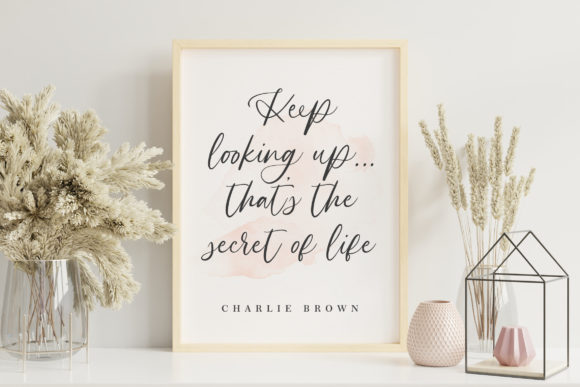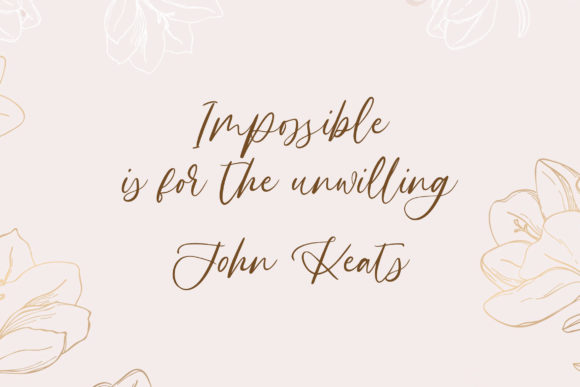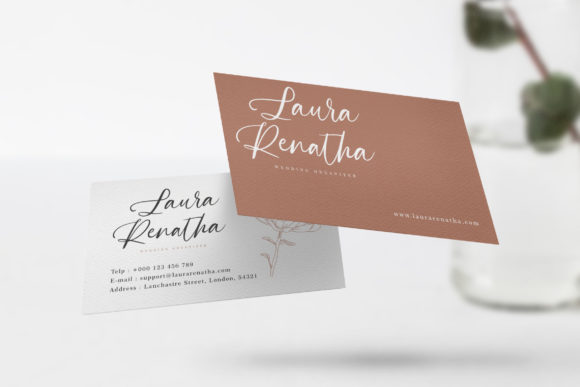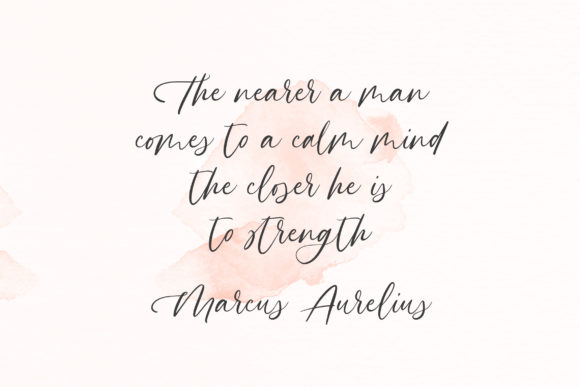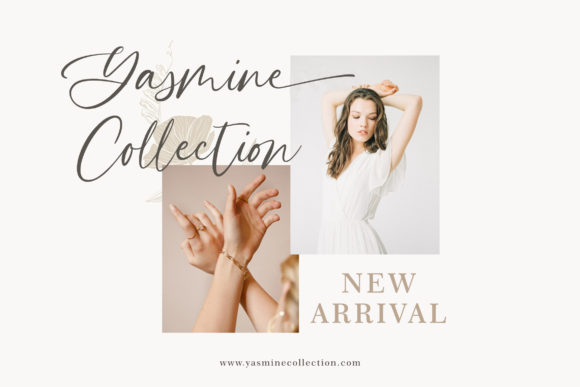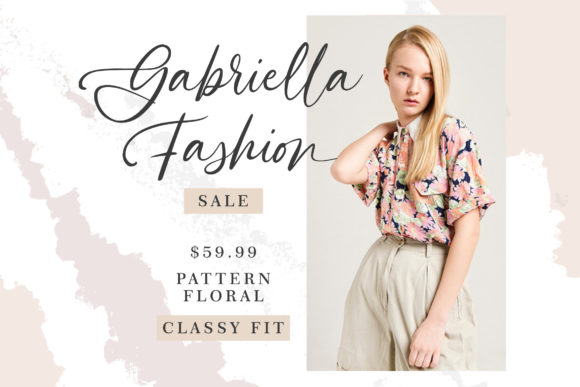
Introducing Golden Bloom Font: Elevate Your Designs with Elegance and Sophistication
In the world of typography, a font can make or break the aesthetic of a design project. For those seeking a touch of luxury and refinement, the Golden Bloom Font is an exceptional choice. This chic, refined script font is designed to emanate sophistication and elegance, making it the perfect match for any project that demands high-end style.
What is Golden Bloom Font?
Golden Bloom is a beautifully crafted script font that exudes classic charm with a modern twist. Its flowing lines and delicate curves are meticulously designed to bring a sense of luxury and refinement to any design. Whether you’re working on a branding project, wedding invitations, or packaging, Golden Bloom Font is sure to make a lasting impression.
Key Features of Golden Bloom Font
- Stylish Alternates and Ligatures: One of the standout features of Golden Bloom Font is its comprehensive set of stylish alternates and ligatures. These features allow designers to add a unique touch to their work, making each project truly one-of-a-kind.
- Elegant and Sophisticated: The font’s elegant and sophisticated design makes it ideal for projects that require a high level of refinement. From luxury brands to high-end events, Golden Bloom Font is the perfect choice.
- Versatile: Golden Bloom Font is incredibly versatile, making it suitable for a wide range of design projects. Whether you’re creating a logo, packaging, or marketing materials, this font is sure to impress.
- Easy to Read: Despite its elegant and refined design, Golden Bloom Font remains easy to read, making it perfect for body text as well as headlines.
Who Can Benefit from Golden Bloom Font?
Golden Bloom Font is an excellent choice for a variety of designers and crafters, including:
- Graphic Designers: If you’re a graphic designer looking for a font that can elevate your branding and marketing projects, Golden Bloom Font is an excellent choice.
- Wedding Planners and Stylists: For those in the wedding industry, Golden Bloom Font is perfect for creating beautiful wedding invitations, programs, and other stationery.
- Packaging Designers: If you’re involved in packaging design, Golden Bloom Font can add a touch of luxury to your designs, making products stand out on store shelves.
- Crafters and DIY Enthusiasts: For crafters and DIY enthusiasts, Golden Bloom Font can be used to add a personal touch to handmade cards, invitations, and other craft projects.
Tips for Using Golden Bloom Font
To get the most out of Golden Bloom Font, consider the following tips:
- Pair with Simple Fonts: For maximum impact, pair Golden Bloom Font with simpler fonts to create a striking contrast.
- Experiment with Alternates and Ligatures: Take advantage of the font’s stylish alternates and ligatures to add a unique touch to your designs.
- Use for Headlines and Titles: Golden Bloom Font is perfect for headlines and titles, but don’t be afraid to use it for body text as well.
In conclusion, Golden Bloom Font is a stunning script font that can elevate any design project with its elegance and sophistication. With its stylish alternates and ligatures, versatility, and ease of readability, it’s an excellent choice for designers and crafters alike. Whether you’re working on a luxury brand project, wedding stationery, or packaging, Golden Bloom Font is sure to make a lasting impression.